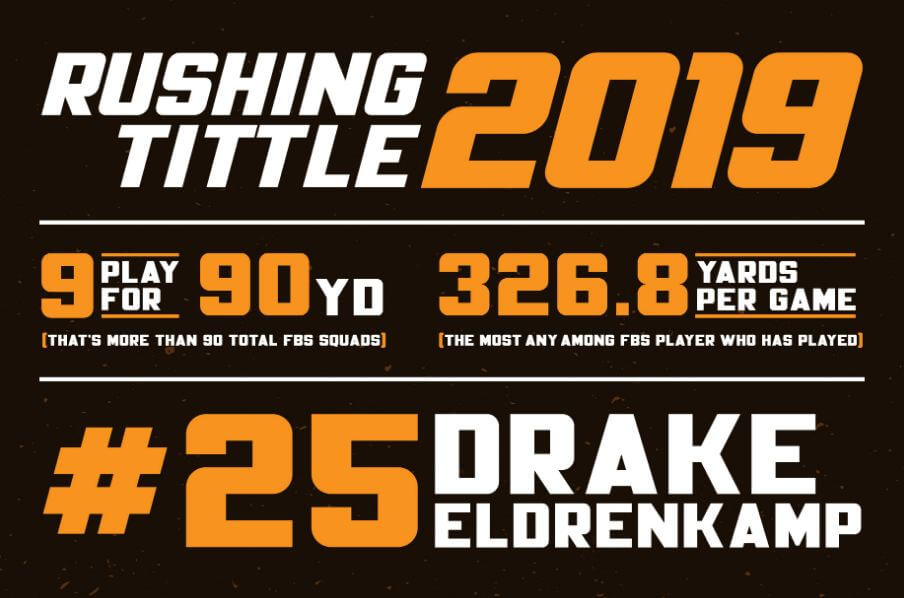
Mesquin Typeface Font
The Mesquin Typeface Font blends contemporary while keeping a touch of rustic in four unique styles! It’s like the slender font, a bold choice for modern and daring concepts. Want to add a touch of class to your designs? Check it out!
Available in a sort of weights, this font gives you the options you must prefer the great typographic color for some thing project you’re engaged on.
Style Of Mesquin Typeface Font